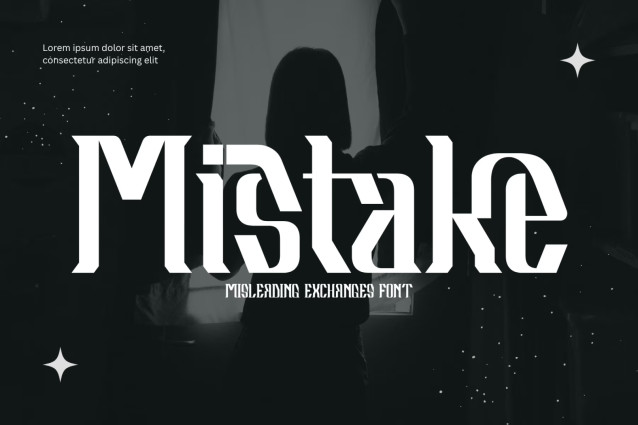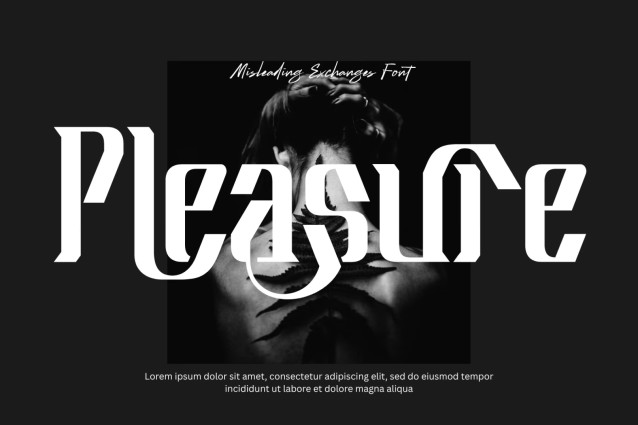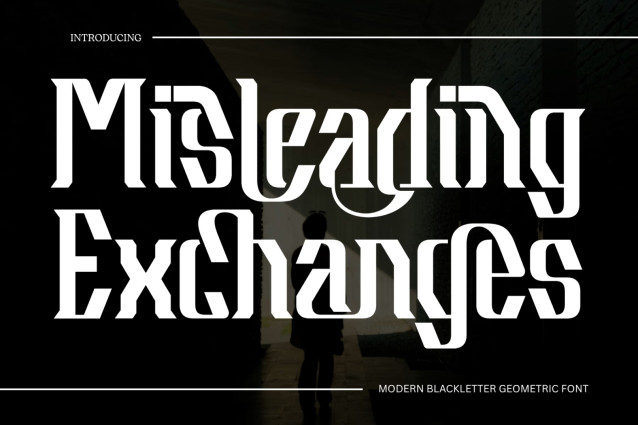
Misleading Exchanges Font
Misleading Exchanges Font – Modern Blackletter & Cyber-Gothic Stencil Display Font, is an atmospheric, high-impact display font engineered at the nexus of medieval blackletter typography, futuristic stencil cuts, and sharp cyber-gothic architecture. Defined by its tall condensed stems, diamond-sharp spurs, and sweeping fluid arches, this typeface strikes a thrilling balance between dark historical elegance and cutting-edge dystopian design.
Crafted with precision 45-degree stencil slashes and razor-sharp inner counters, Misleading Exchanges transforms standard headlines into imposing typographic sigils. It is the definitive display choice for dark fantasy game interfaces, heavy metal and phonk album artwork, streetwear techwear fashion, horror and sci-fi movie titles, and high-octane branding graphics.